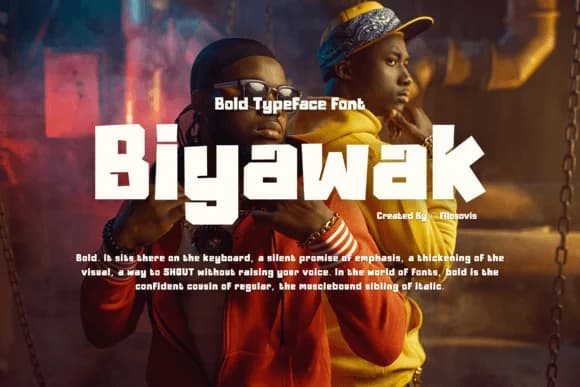
Biyawak brings an unapologetic confidence to any layout. Created by filosovis.co, this slab-serif typeface balances sturdy, geometric letterforms with a personality that feels both contemporary and rooted in genuine playfulness. The proportions have real weight behind them, a solidity that makes words feel important and grounded without needing to shout or overwhelm the page.
Where it really excels is in its versatility despite that bold demeanor. It works beautifully for brand identities where you need instant visual recognition, from vintage-inspired cafΓ© logos and independent bookstore signage to confident logotypes for creative agencies and growing startups. Editorial headlines in design publications, boutique product packaging for artisan goods, and event posters all benefit from its character, where the letterforms function as design elements rather than just delivering text. Both uppercase and lowercase forms carry that same strength, giving you flexibility to create varied visual hierarchy within layouts that benefit from both boldness and subtle refinement.
Biyawak Font is a slab serif font that shines as a display or heading face. Pair it with a clean sans-serif or serif font for body text β the contrast creates a clear hierarchy while the two styles stay balanced and easy to read.